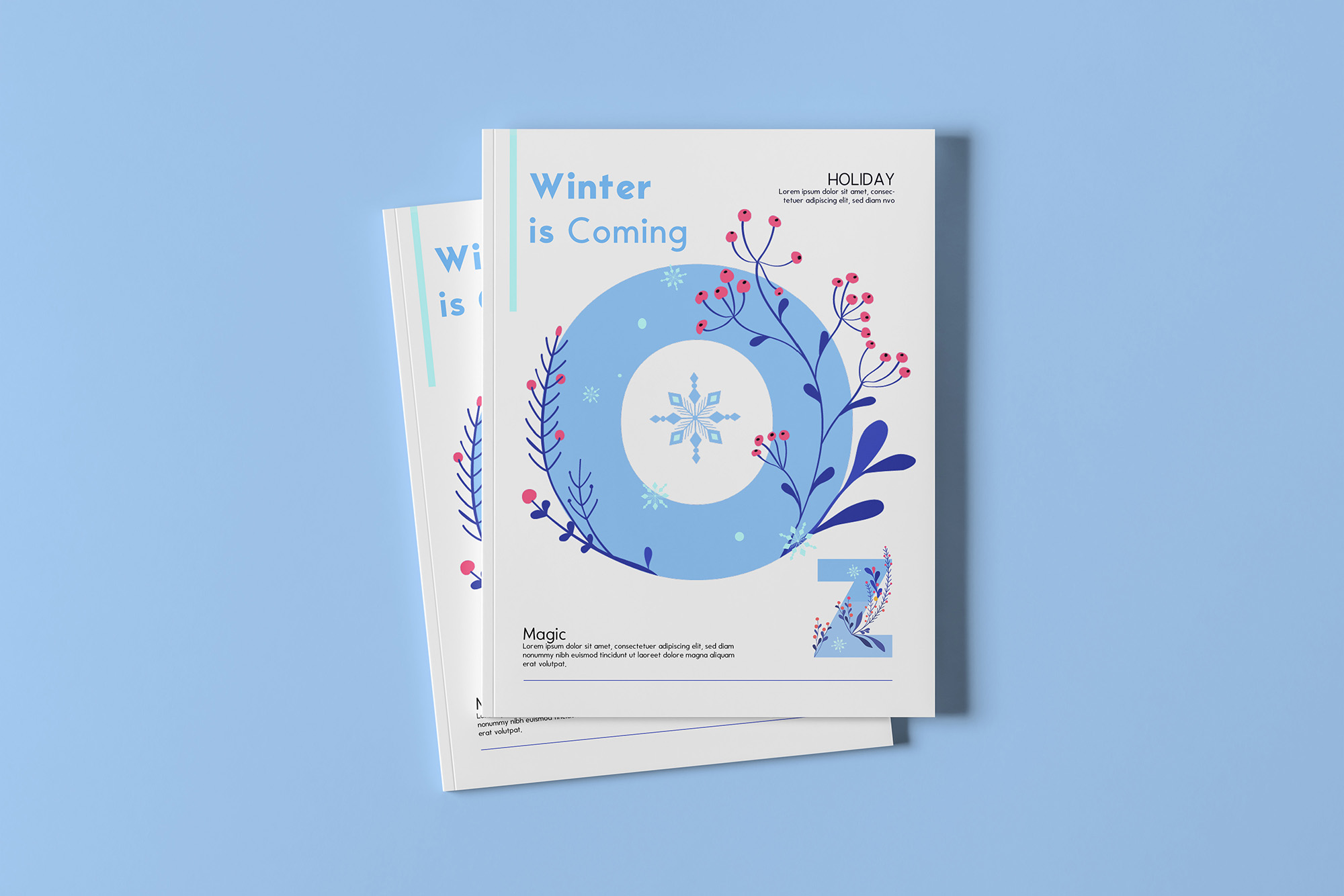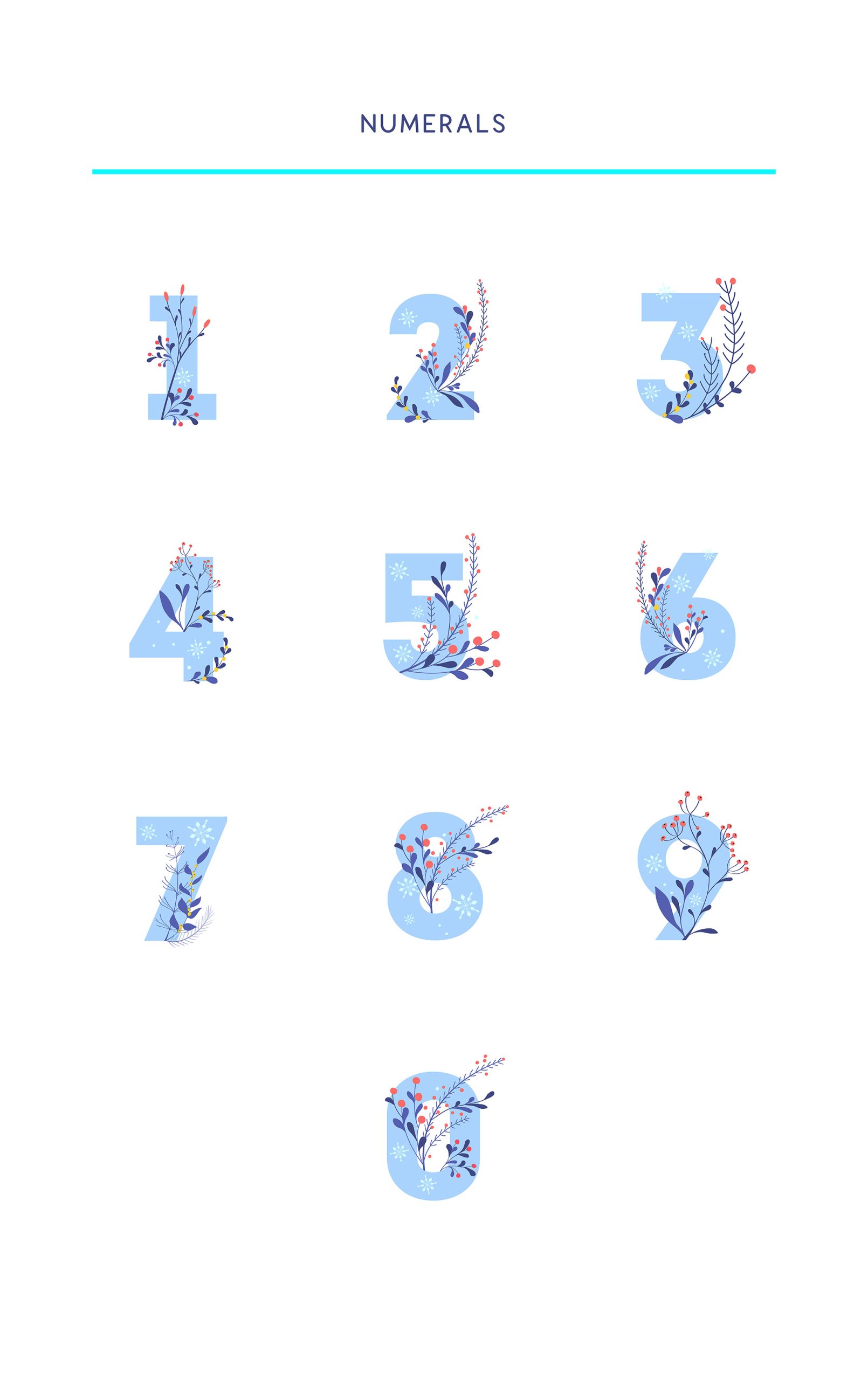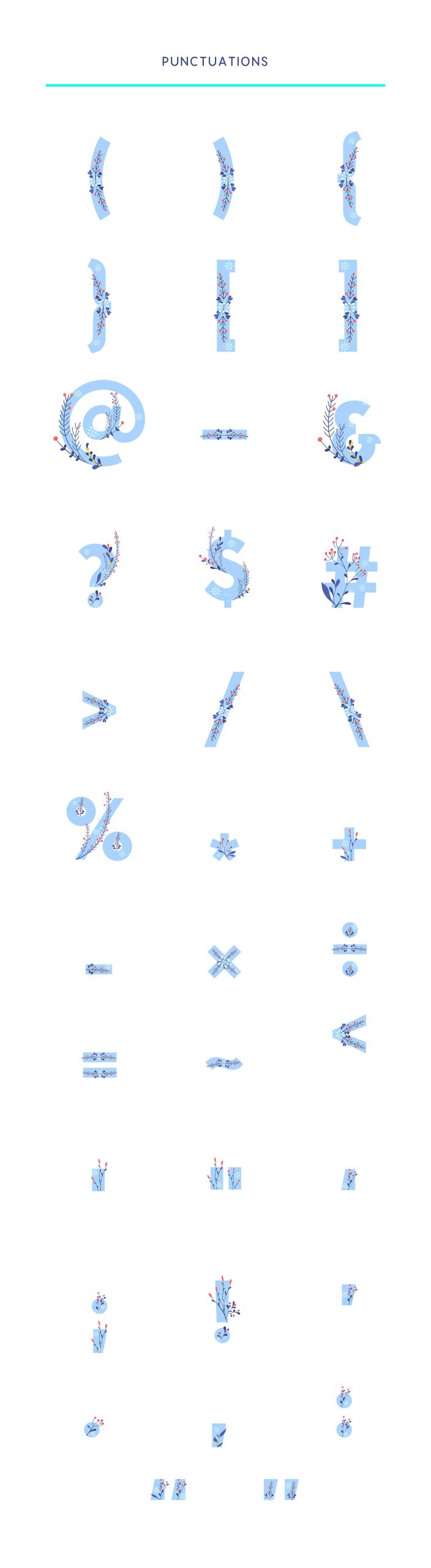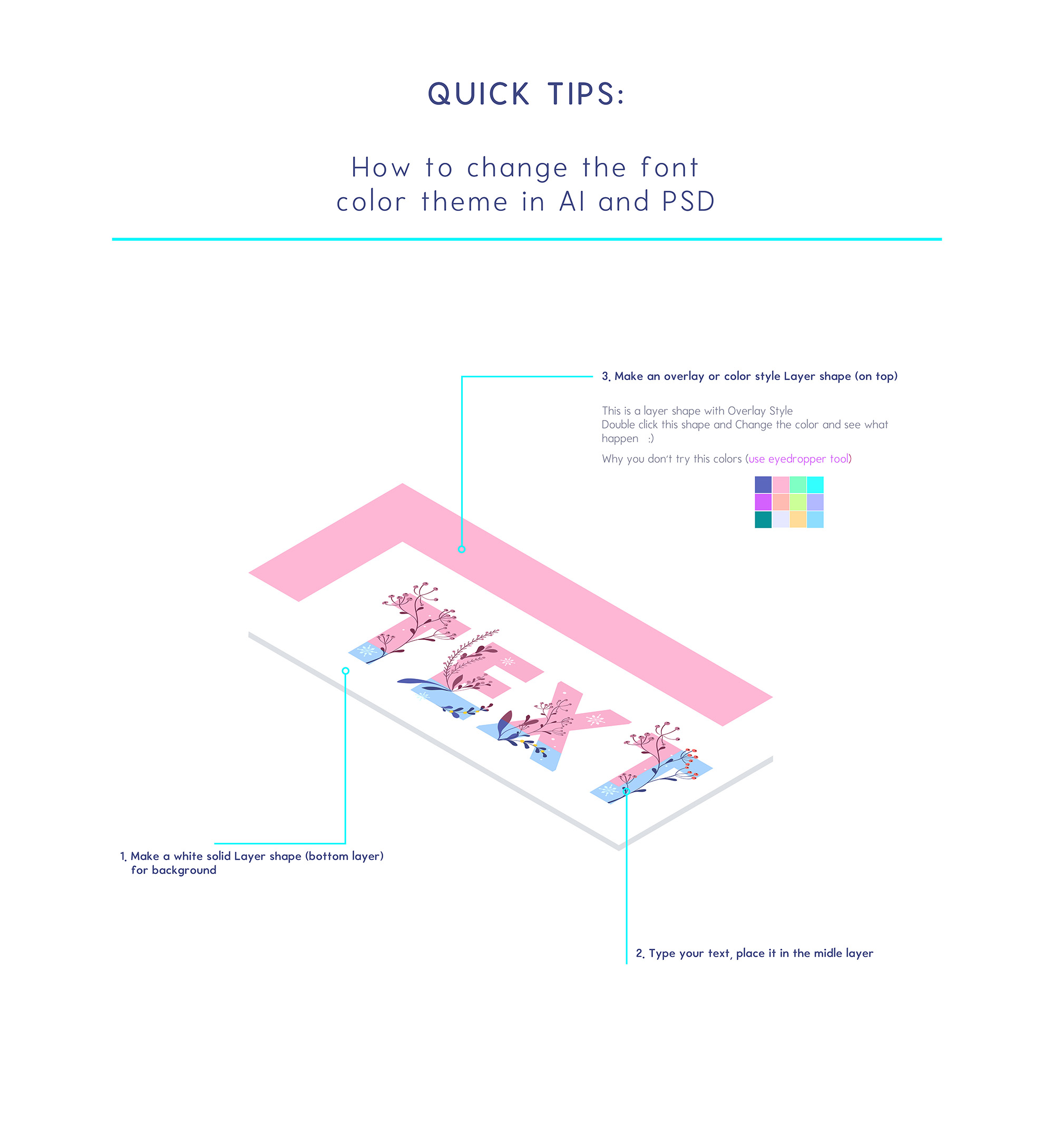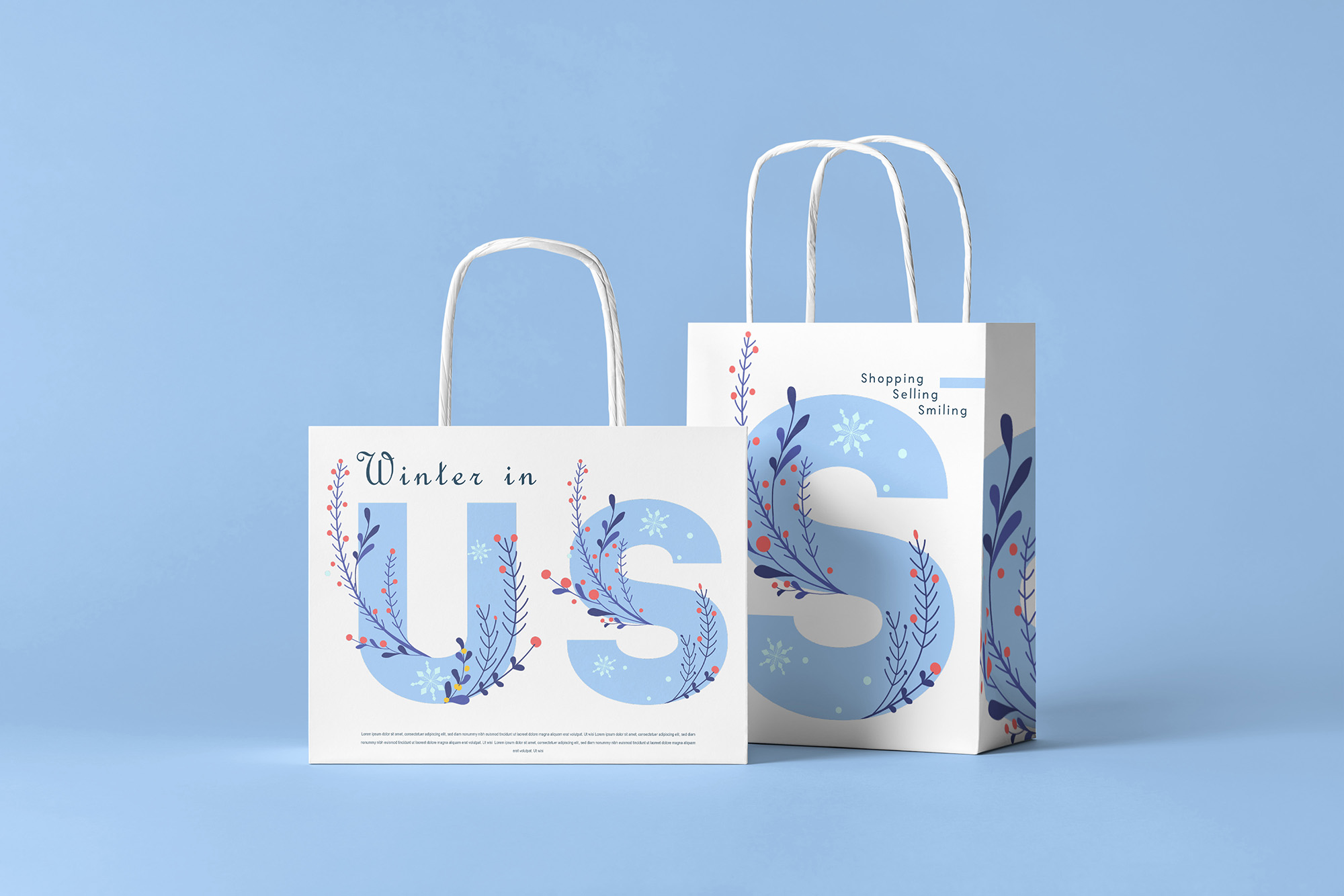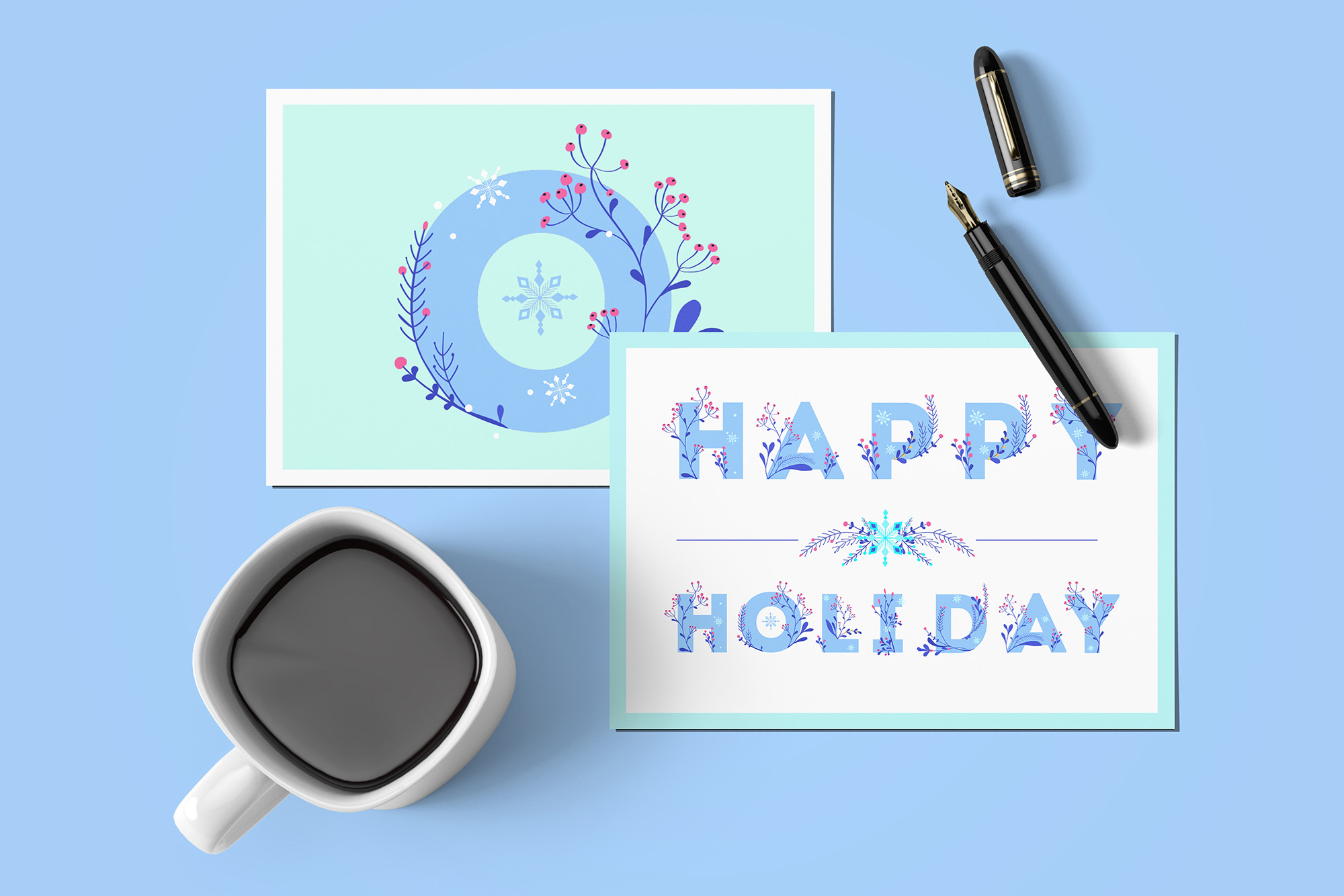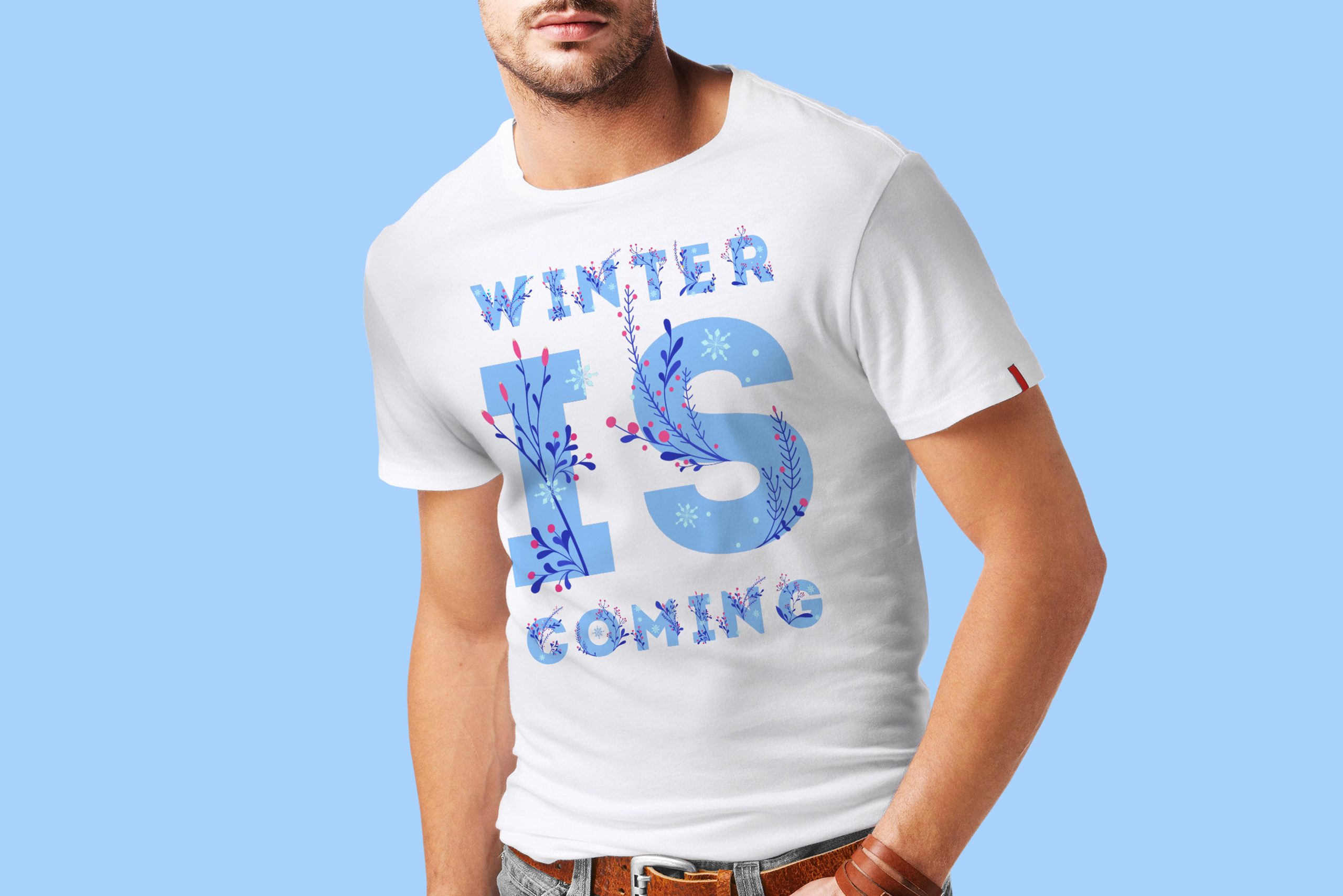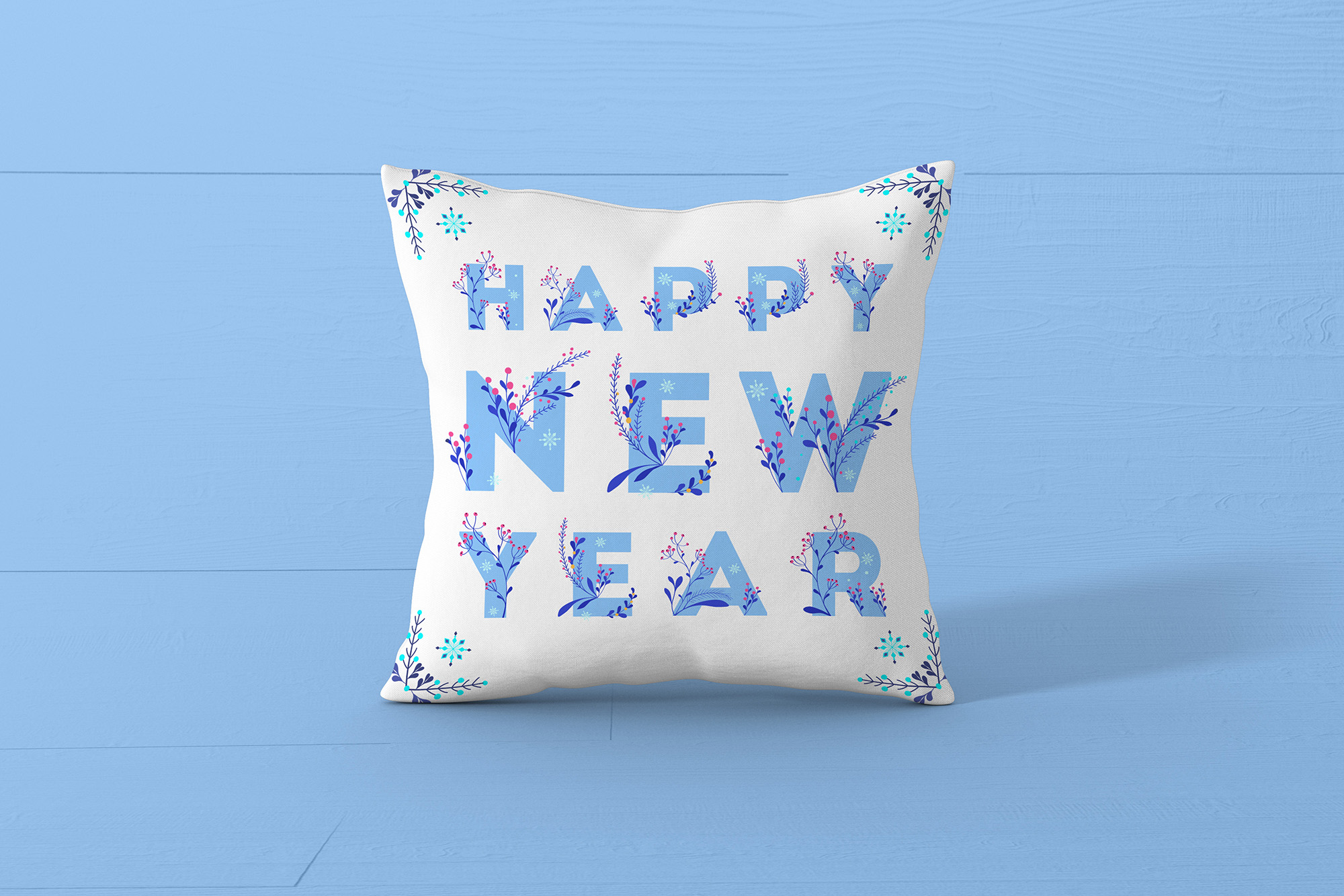
What Is Winter Color Font?
Winter Color Font is an enchanting OpenType-SVG typeface created to fill your designs with the magic of the holiday season. Each character features vibrant colors, festive illustrations, and playful details that capture the joyful spirit of Christmas. Whether you’re designing something fun, heartwarming, or attention-grabbing, Winter Color Font helps you create artwork that feels truly special.
Its innovative color format makes it a standout choice for any designer looking to bring extra holiday cheer to their projects.
Winter Color Font is perfect for a wide variety of festive applications. For example, it’s ideal for holiday cards and postcards. The bright, colorful letters instantly set a merry tone that delights recipients.
Event signage and banners come alive with Winter’s cheerful design. From Christmas parties to seasonal promotions, this font helps your message stand out.
Merchandise like T-shirts, mugs, and tote bags feel extra festive with Winter’s unique characters. You can create products that people love to gift or keep as holiday keepsakes.
Websites and digital ads also benefit from Winter Color Font’s eye-catching look. Whether you’re designing a banner, a homepage hero section, or social media graphics, this typeface makes your content shine.
Even logos, posters, and art prints can take on a playful, magical feel when you use Winter Color Font.
Why Should You Choose Winter Color Font?
Winter Color Font is built in the advanced OpenType-SVG format, which allows it to display rich color, shading, and texture that standard vector fonts can’t achieve. Each letter feels almost hand-painted, bringing a sense of depth and authenticity to your designs.
Designers love that Winter Color Font saves time—no need to add extra effects or layers to create an engaging holiday look.
Winter Color Font adds instant warmth, personality, and festive cheer to any project. Its detailed color letters and playful style make even simple layouts feel polished and special.
Using a premium OpenType-SVG font also demonstrates your commitment to innovative, professional design. Clients and customers will notice the quality and creativity, helping you build trust and stand out.
Even if you’re short on time, Winter Color Font makes it easy to produce high-impact graphics that look thoughtfully designed.
Winter Color Font is more than just a typeface—it’s a holiday design toolkit packed with joy, color, and personality. From cards and banners to apparel and websites, this font helps you bring the magic of Christmas to every project.